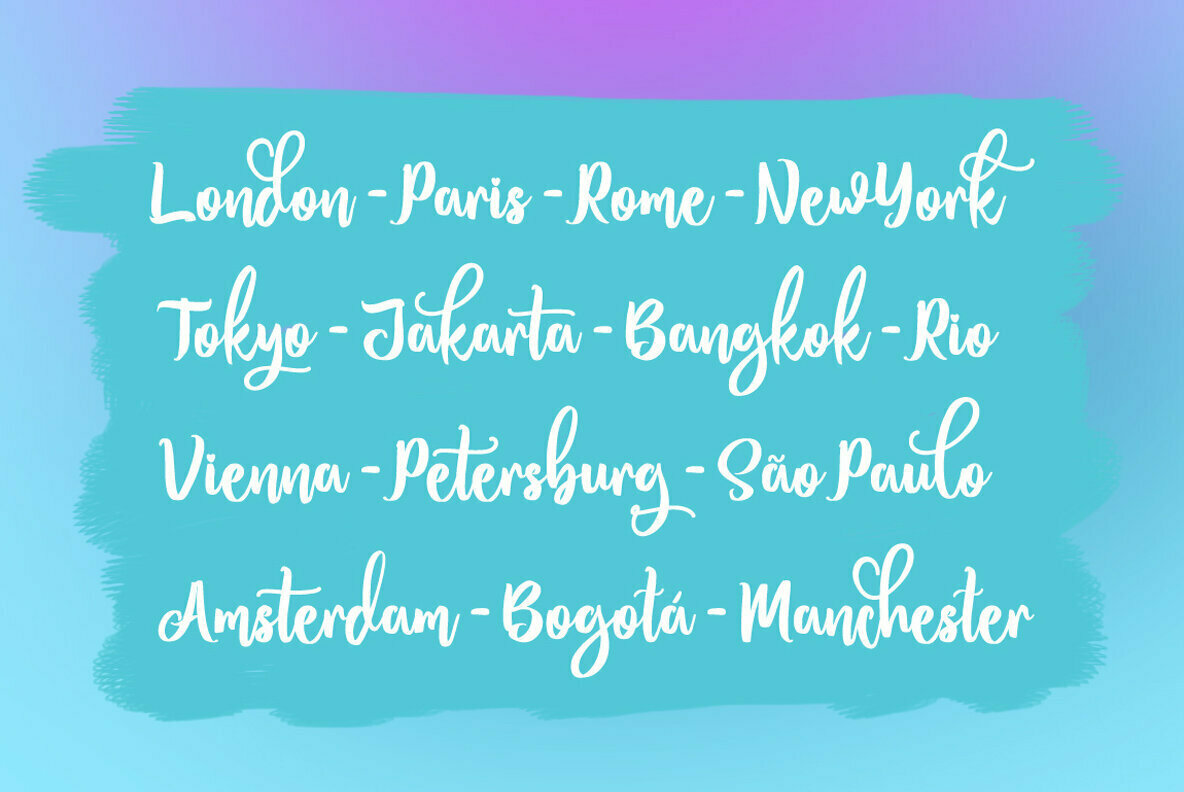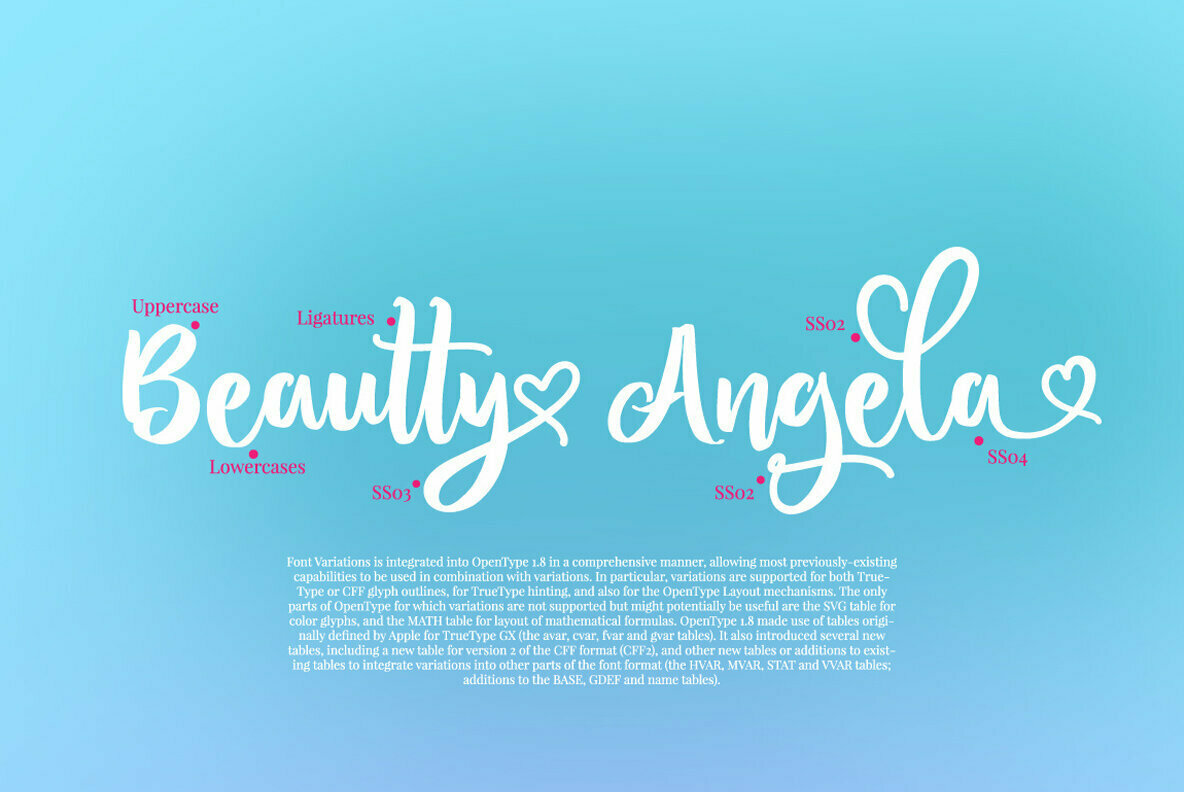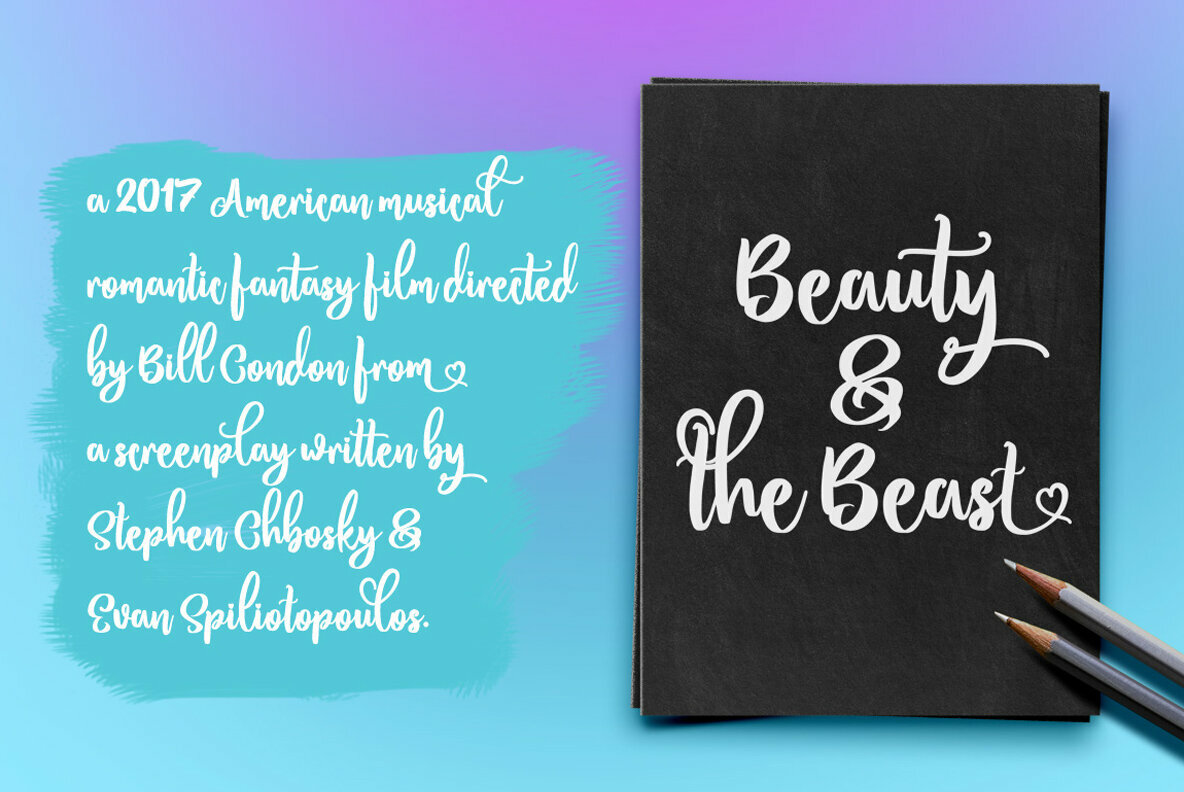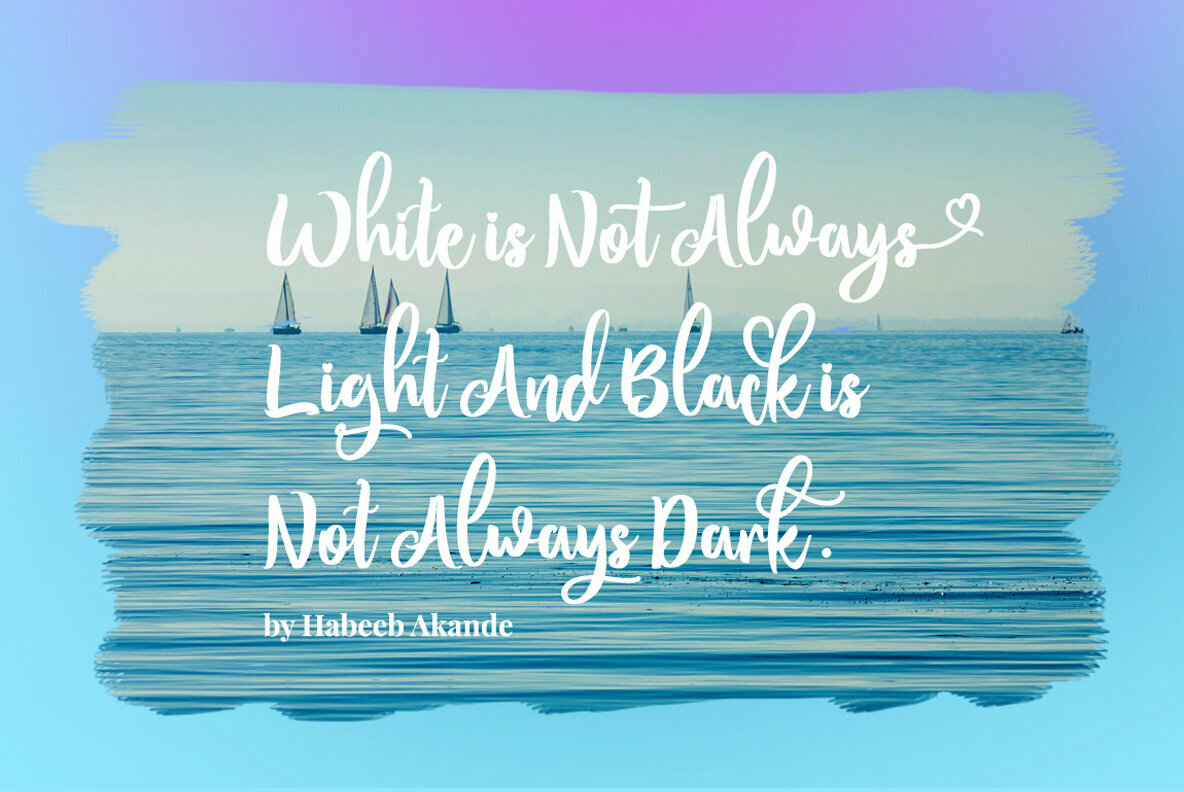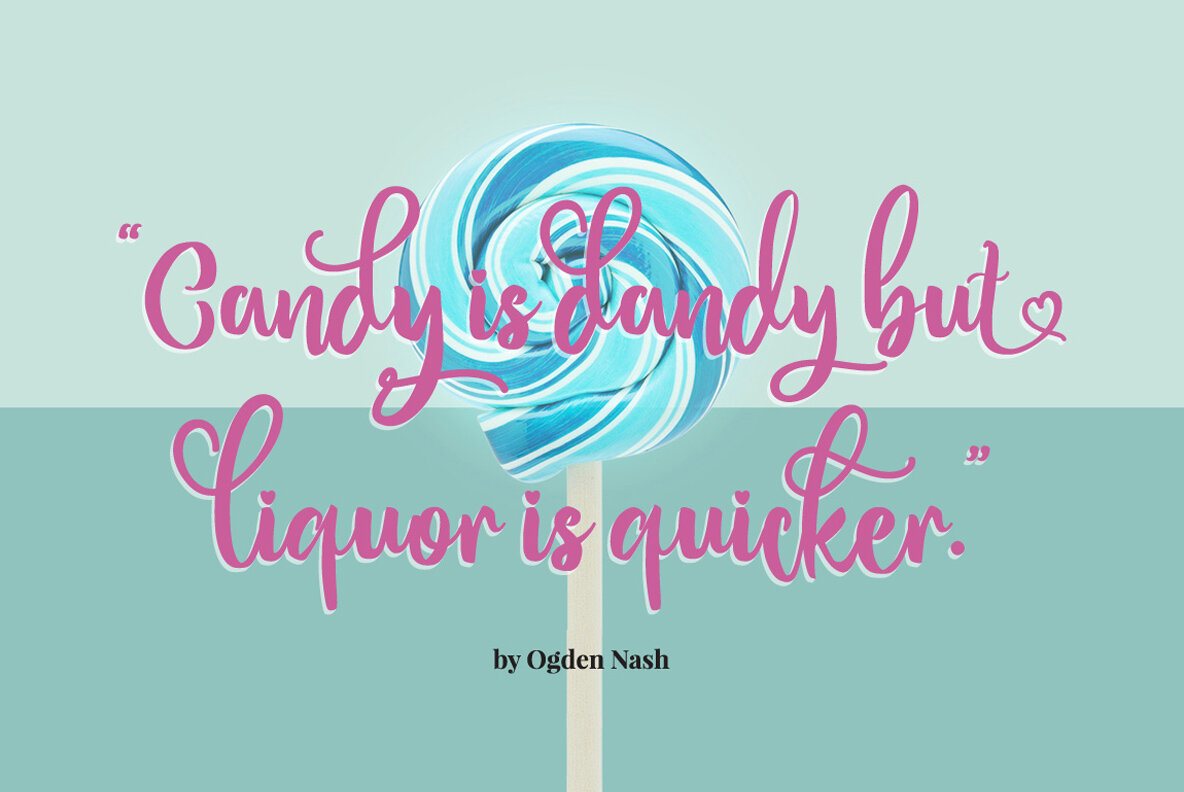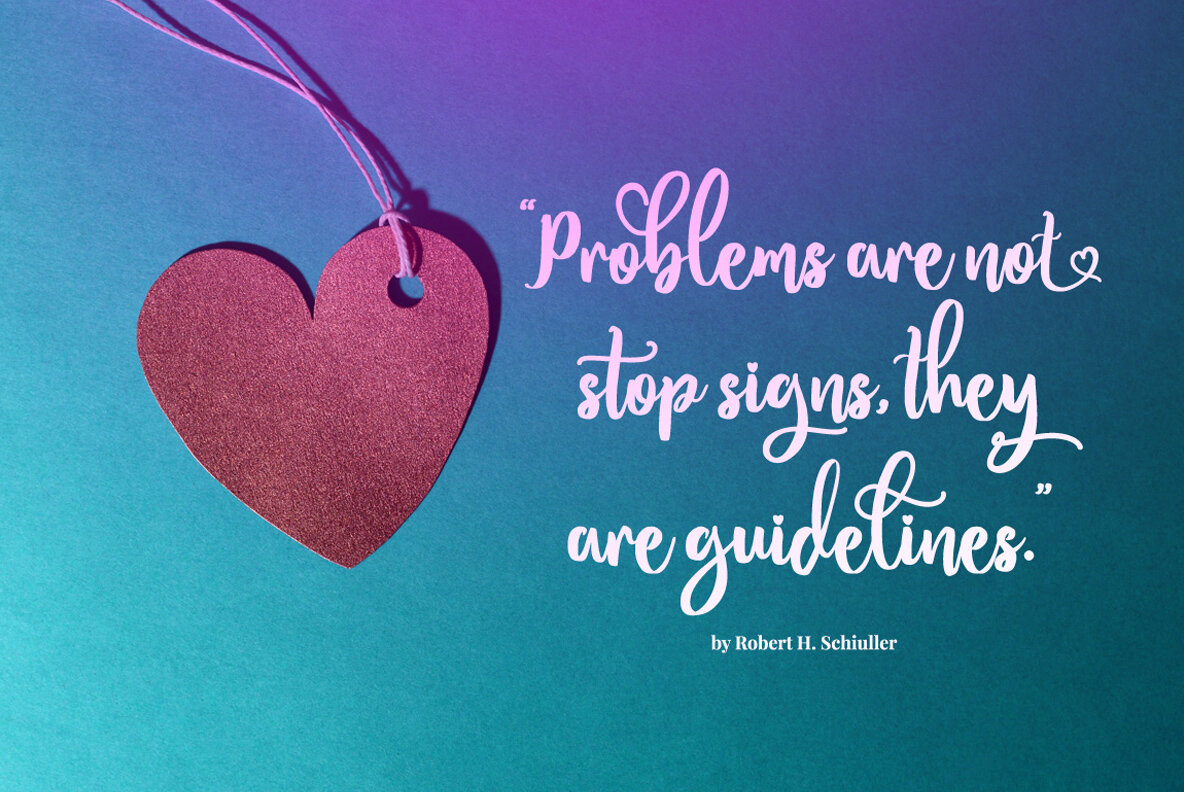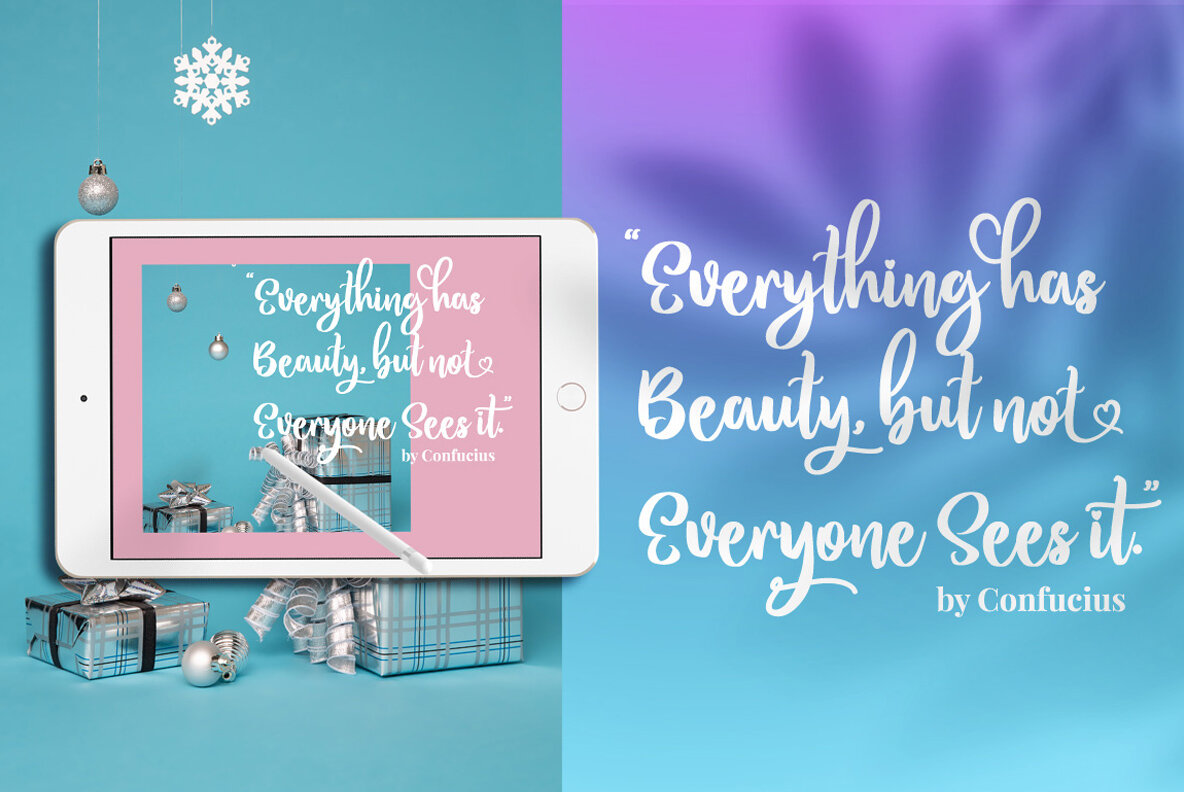
Bitten Amore Font
Bitten Amore
Bitten Amore offers a charming script aesthetic, perfectly sculpted for handlettering enthusiasts. The font's brush style adds a personal touch, making it a versatile choice for projects that require a unique flair. Whether it's for weddings, events, or branding, Bitten Amore provides an elegant solution.Bitten Amore: A Handlettering Brush Script